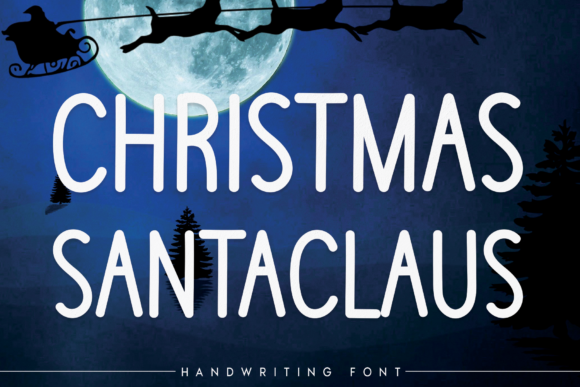
**Introducing Christmas Santa Claus - A Font Crafted for Festive Charm**
Prepare to be amazed by Christmas Santa Claus, the captivating sans serif font that will add a touch of holiday magic to your creative endeavors. Its perfectly balanced letterforms dance gracefully across the page, not too thin, and not too thick, striking a harmonious equilibrium that elevates your designs to new heights.
**A Timeless Choice for Personal and Commercial Projects**
Whether you're crafting a heartfelt wedding invitation, designing a festive poster, or creating eye-catching social media graphics, Christmas Santa Claus is your perfect companion. Its versatility knows no bounds, effortlessly adapting to a wide range of projects, both personal and commercial.
**A Font Designed with Perfection in Mind**
Every curve, every line, every stroke in Christmas Santa Claus has been meticulously crafted to deliver a visually stunning experience. Its simple yet elegant design ensures that your words will shine, capturing the attention of your audience and leaving an unforgettable impression.
**Elevate Your Creations with Christmas Santa Claus**
Christmas Santa Claus is more than just a font; it's an invitation to let your creativity soar. Its natural flow and balanced structure empower you to craft designs that exude sophistication and charm. Prepare to be mesmerized as your projects transform into captivating masterpieces.
**Experience the Magic of Christmas Santa Claus Today**